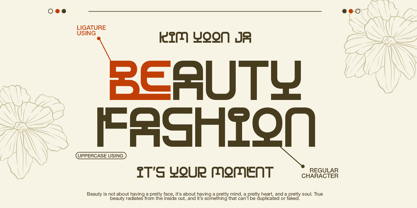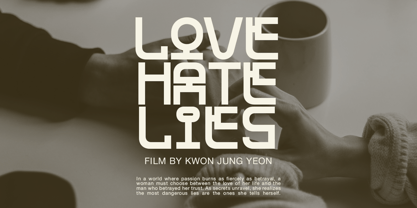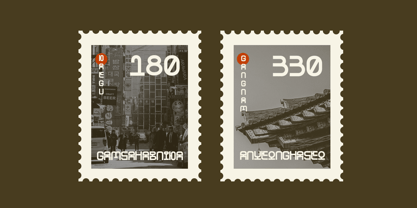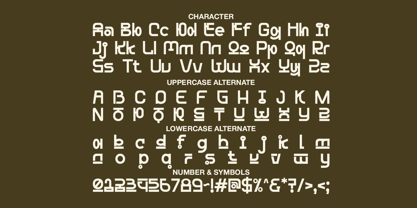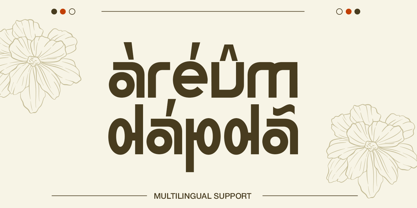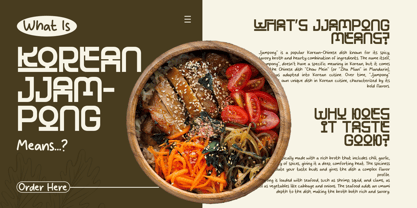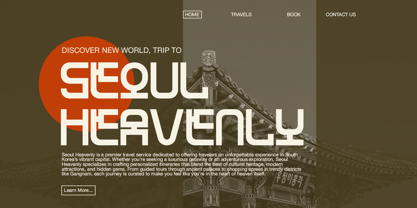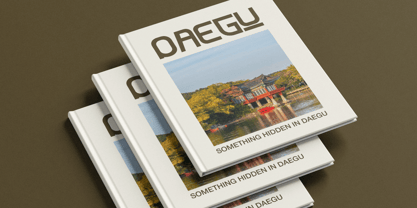
Hanjaku Namseo
by Pandeka Studio
The Hanjaku Namseo Font Family was designed by Sagara Nararya and published by Pandeka Studio. Hanjaku Namseo contains 2 styles and family package options. More about this family
Hanjaku Namseo – Korean Typeface with Traditional Charm
Hanjaku Namseo is a bold and elegant Korean typeface that blends traditional aesthetics with modern flair. Its graceful curves and cultural essence make it ideal for korean-themed branding, traditional event invitations, cultural posters, editorial layouts, and elegant product packaging. Perfect for designers seeking a unique display font with a stylish, refined, and culturally rich character.
• 2 Style: Regular and Oblique
• Full Character Set: Uppercase, lowercase, numbers, symbols, and punctuation
• 20+ Ligatures and alternates
Designers: Sagara Nararya
Foundry: Pandeka Studio